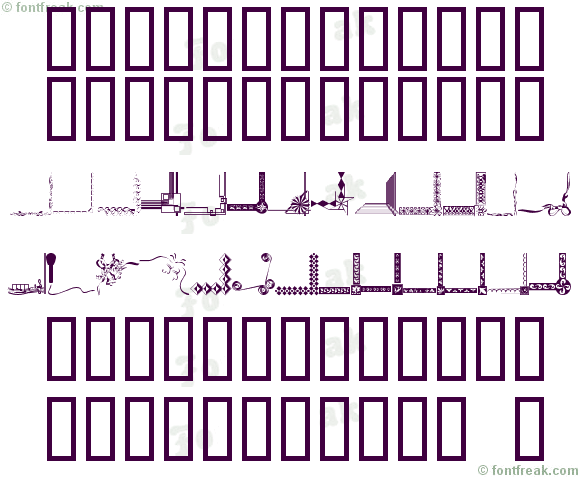
Border Corners
About Border Corners 1
Border Corners 1 by Font Freak is a decorative font that combines whimsy with elegance, making it a perfect choice for graphic projects that require a touch of flair. This freeware font features unique corner designs that give a playful yet sophisticated edge to your typography. The strokes are moderately thick, creating a balanced contrast that enhances readability while maintaining visual interest. The spacing is generous, allowing the intricate corner details to shine without overwhelming the text. This font is characterized by its decorative elements, which include charming corner embellishments that can be used to frame text or add an artistic touch to any design.
Border Corners 1 is ideal for a variety of creative applications. It works beautifully for wedding invitations, where its delicate yet bold appearance can enhance the romantic tone of the event. Additionally, it’s perfect for movie posters, especially those in the fantasy or adventure genres, where the decorative corners can add an air of excitement. Restaurant menus can also benefit from this font; its unique style can make dish descriptions pop, enticing customers with a visual feast. Furthermore, content creators looking to elevate their social media graphics will find that Border Corners 1 adds a unique personality to their posts.
Targeted at graphic designers, small business owners, and content creators, this font provides a versatile option that can enhance branding and visual storytelling. Its unique design elements allow for creativity and customization, making it a valuable resource for anyone looking to make an impact.
In conclusion, Border Corners 1 font free download offers a distinctive style that stands out in the crowded world of typography. Its combination of decorative features and functional design makes it a compelling choice for a wide range of projects, ensuring that your creations are both eye-catching and memorable.